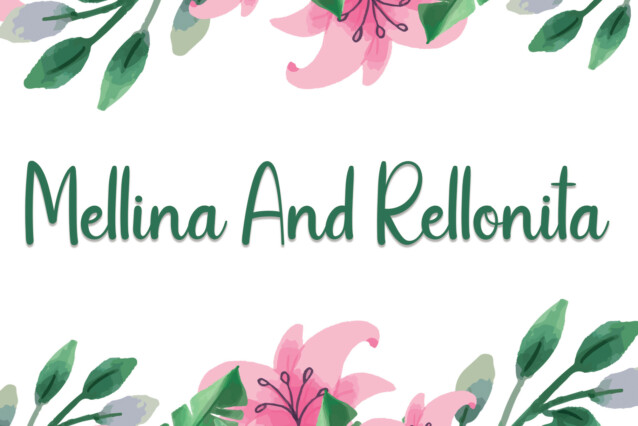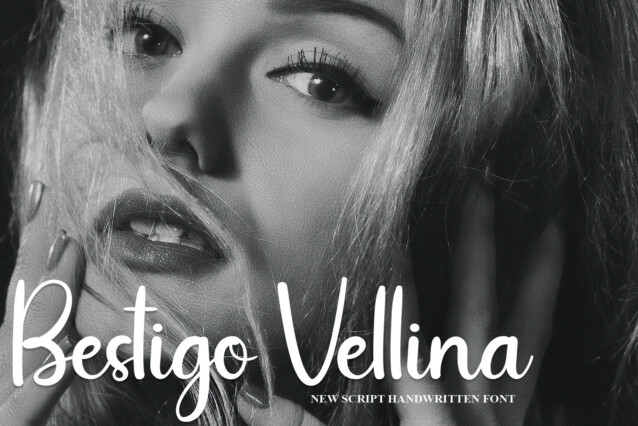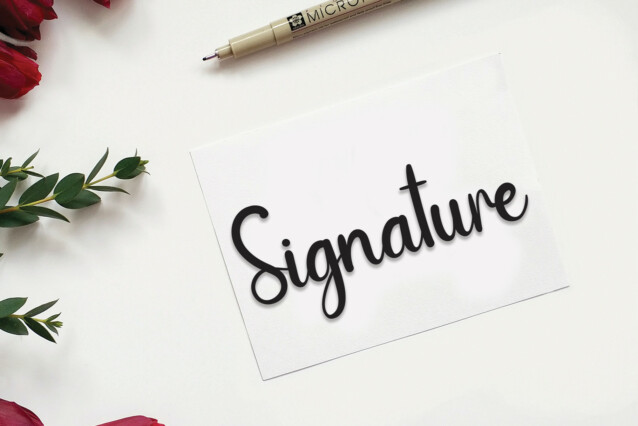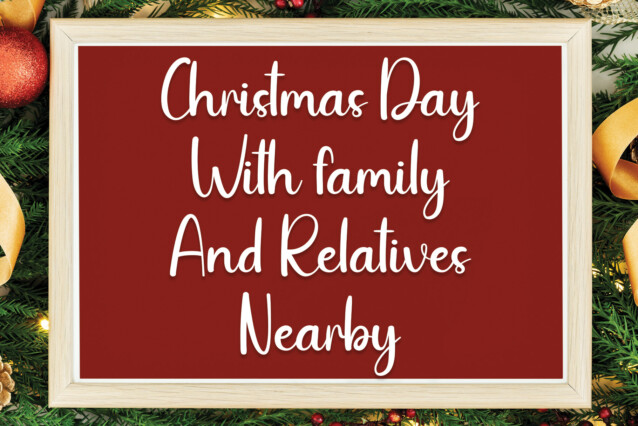
Before Script Font
Before Script Font feels equally charming and elegant. It looks stunning on wedding invitations, thank you cards, quotes, greeting cards, logos, business cards, and every other design which needs a handwritten touch.